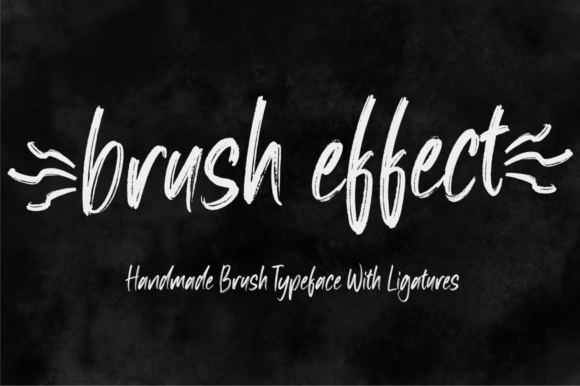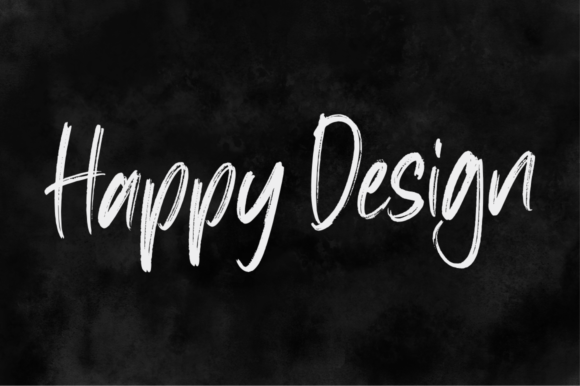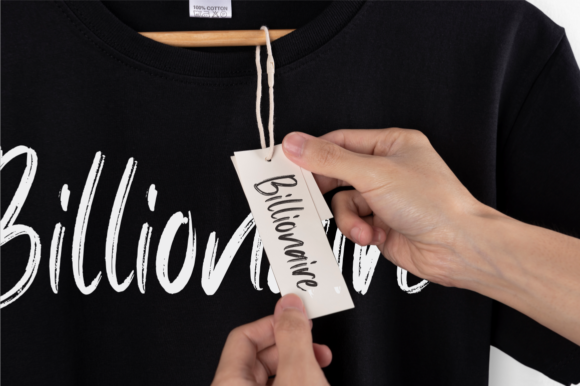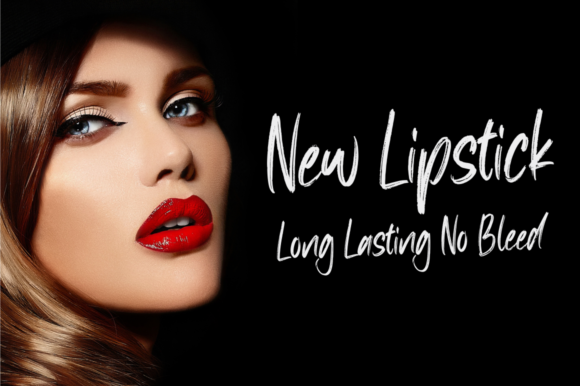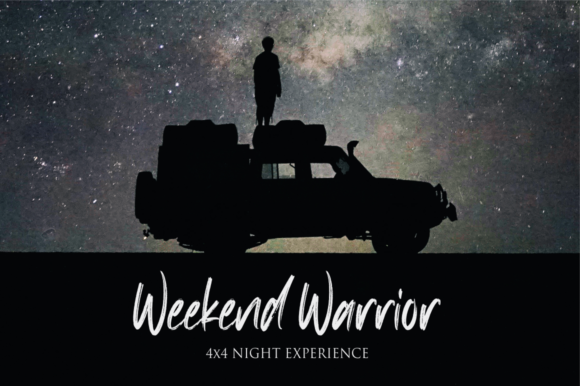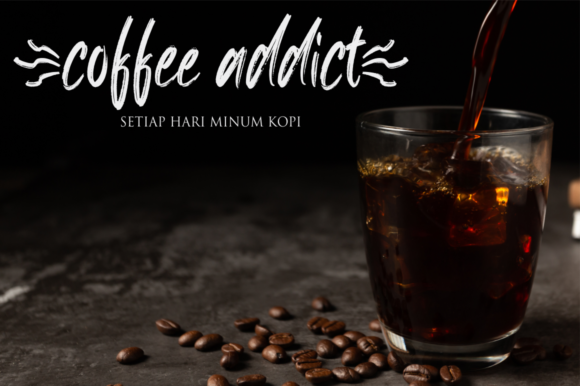
Brush Effect Font
About Brush Effect Font
Brush Effect is a cool and brushed handwritten font. Whether you’re looking for fonts for Instagram or calligraphy scripts for DIY projects, this font will turn any creative idea into a true piece of art!